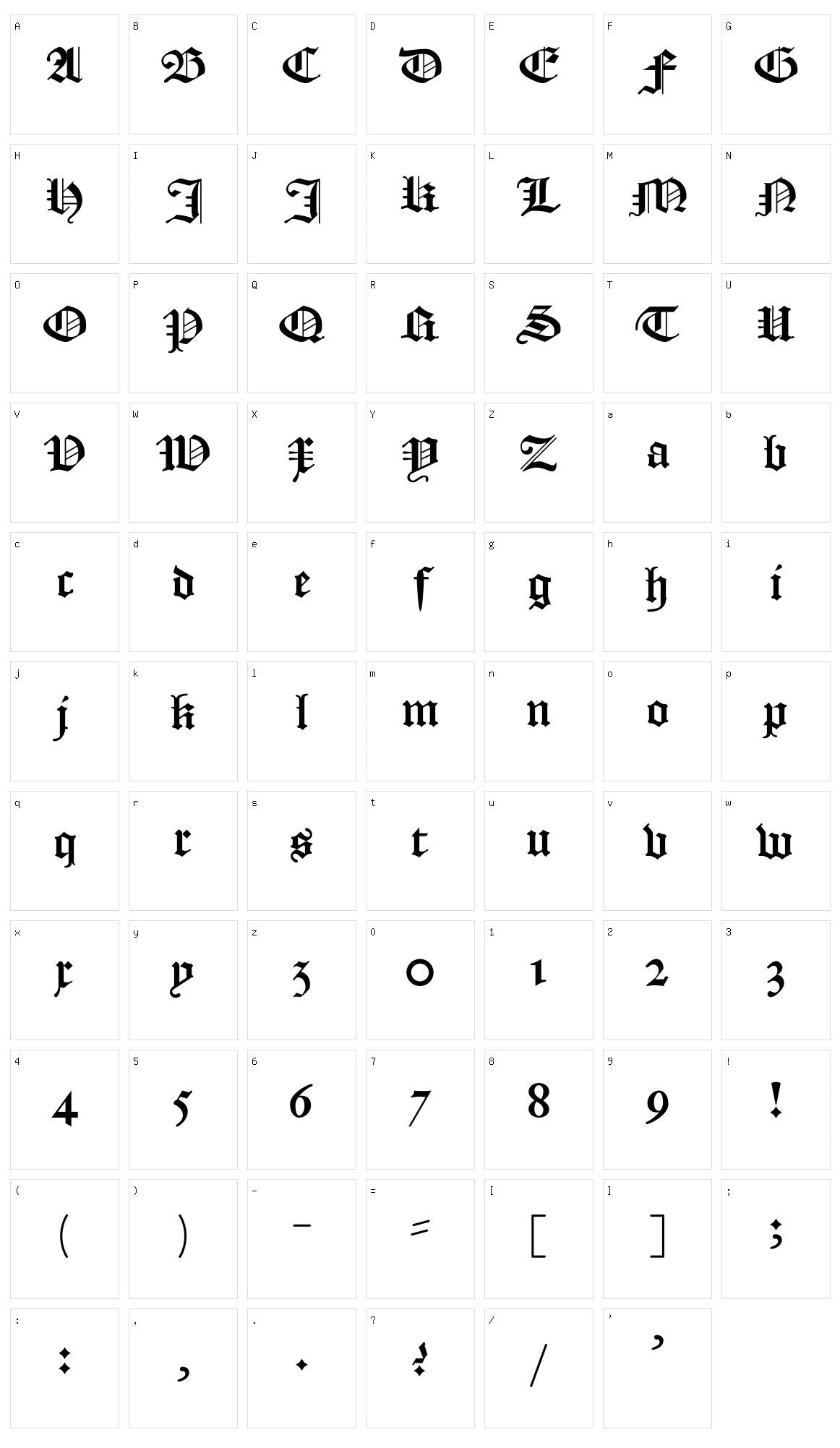
Textura Belgica
Category: Medieval & Gothic
~ TEXTURA BELGICA ~
== Over het lettertype ==
De schrik van menig student Nederlands! Textura Belgica is een traditiegetrouwe digitalisering van het Gotische lettertype zoals dat van de 16e tot in de 20e eeuw in het Nederlands taalgebied gebruikt werd.
Traditiegetrouw wil zeggen dat er in dit lettertype, anders dan in veel andere Gotische lettertypes die je online kunt vinden, volledige ondersteuning is voor de bijzondere tekens die je nodig hebt om naar hartelust je persoonlijke facsimiles maken!
Het lettertype is gedigitaliseerd aan de hand van een hoge-resolutie scan van een vel waarop alle letters staan, zoals gemaakt door de Gentse lettersnijder en -gieter Hendrick van den Keere. Naast dit vel, dat ik als basis heb gebruikt, heb ik gebruikt:
- scans van de Statenvertaling uit 1637 (https://www.bijbelsdigitaal.nl/view/?bible=sv1637);
- via Google Boeken 'Verbael van 't Verhandelde over de Gravamina, Kerckelijke swaricheden tot Rotterdam, Oudewater, etc.' (https://books.google.nl/books?id=zRZjAAAAcAAJ&printsec=frontcover&);
- mijn kleine privécollectie (twee bijbels, begin 19e en eind 18e eeuw, en een catechismus, tweede helft 18e eeuw).
Ik heb dit lettertype 'Textura Belgica' genoemd aangezien de term 'Belgica' in de tijd dat dit soort lettertype zijn 'gouden tijdperk' had nog als Latijnse benaming voor heel de Nederlanden gold (zo was de Latijnse naam van Nieuw-Nederland 'Nova Belgica').
== Bijzondere tekens en ligaturen ==
Aangegeven toetscombinaties op basis van de toetsenbordopmaak 'Verenigde Staten (internationaal)'
Inbegrepen bijzondere tekens zijn:
Tekens: Te typen met:
lange s (ſ) <ſ>, <ß> (AltGr+s)
r-rotunda (ꝛ) <ꝛ>, <®> (AltGr+r)
Over deze tekens, voor de oningewijden:
De regels voor de lange s lijken te verschillen per land en per tijdvak. Het is makkelijker de gevallen te benoemen waarin de lange s níét gebruikt moet worden, ten faveure van de gewone 'ronde' s. Een concrete regel is dat de lange s nooit aan het einde van een woord komt: 'ſtaal' en 'plaats'. Een andere mogelijke regel is dat de lange s niet aan het einde van een lettergreep komt: 'lasſer'. Volgens een derde regel mag de laatste letter van een deelwoord van een samenstelling geen lange s zijn; hier kun je dus een verschil in betekenis zien: 'plaat-ſtaal' en 'plaats-taal'.
De regels voor de r-rotunda zijn daarentegen vrij eenvoudig. Dit is een puur esthetische vorm van de letter <r> die moet worden geschreven na letters die naar rechts toe afgerond zijn, <b>, <d>, <p>?, <v>, <w>. Er blijkt echter ook discussie mogelijk over wat een 'ronde' letter is; zo heb ik een Bijbel uit de 19e eeuw waar ook met enige regelmaat na de <t> een r-rotunda gebruikt wordt.
Abbreviaturen: Te typen met: Afkorting voor (voorbeelden):
ā <ā>, <à> vā(n)
ē <ē>, <è> denkē(n)
ī <ī>, <ì> zī(n)
ō <ō>, <ò> zō(n)
ū <ū>, <ù> Jeſū(m)
ḋ <ḋ>, <ð> (AltGr+d) ḋ(aer)
n̄ <n̄>, <ñ> (AltGr+n) en̄(de)
m̄ <m̄>, <µ> (AltGr+n) alom̄(m)e
℣ <℣>, <©> (AltGr+c)
Ligaturen:
Standaard, deze zijn automatisch actief
ff
fl
ſt
ſſ
ſl
'Historisch', deze moet apart worden ingeschakeld, maar is ook te typen met <ÿ>
ij
== Verdere opmerkingen over de tekens ==
De zogeheten Gotische komma, die wij eerder als een gewone schuine streep zien, staat in dit lettertype ook op de plek van de schuine streep. Op de plek van de komma staat gewoon een 'moderne' <,>; maar voor het meest authentieke resultaat zou je dus eigenlijk de schuine streep moeten gebruiken.
Dit lettertype heeft twee soorten koppeltekens, die onder <-> en <=> staan (en er ook zo uitzien, maar de tweede gekanteld). <-> wordt voornamelijk gebruikt voor het scheiden van woorden (zoals 'na-apen'), terwijl <=> vooral als woordafbrekingsteken aan het einde van de zin gebruikt wordt. Zoals altijd in oude drukken werden de 'regels' echter niet zo strikt nageleefd, dus je komt ook variatie in gebruik tegen.
== About the font ==
The terror of many a student of Dutch Language and Culture! Textura Belgica is a true to tradition digitalisation of the blackletter type as it was used from the 16th into the 20th century in the Dutch language area.
With 'true to tradition' is meant that, in this font, differently from many other blackletter fonts you can find online, there is full support for the special characters you need to make your personal facsimiles!
This font had been digitalised using a high-resolution scan of a sheet with all letters, as made by type cutter and founder Hendrick van den Keere, from Gent in the 16th century. Beside this sheet, which I used as a base, I used:
- scans of the Dutch 'States Translation' of the Bible from 1637 (https://www.bijbelsdigitaal.nl/view/?bible=sv1637);
- via Google Books 'Verbael van 't Verhandelde over de Gravamina, Kerckelijke swaricheden tot Rotterdam, Oudewater, etc.' (https://books.google.nl/books?id=zRZjAAAAcAAJ&printsec=frontcover&);
- my own little private collection (two Bibles, early 19th and end 18th century, and a catechism, second half 18th century).
I have called this font 'Textura Belgica' as the term 'Belgica' during the 'golden age' of this type of font was used as the Latin name of all the Netherlands (equivalent in area with the modern Benelux). For example, the Latin name of the Dutch colony New Netherland was 'Nova Belgica'.
== Installation ==
is very simple. Open the ttf file and click 'install'. When you have installed the font previously, you will have to confirm that you want to overwrite it.
== Special characters and ligatures ==
Indicated key combinations are based on the layout 'United States (International)'
Included special characters are:
Characters: Can be typed using:
long s (ſ) <ſ>, <ß> (AltGr+s)
r rotunda (ꝛ) <ꝛ>, <®> (AltGr+r)
About these characters, for those who don't know:
The rules for using the long s seem to differ by country and time period. It's easier to note the cases in which it /shouldn't/ be used instead of the normal 'round' s. One concrete rule is that the long s is never used at the end of a word: 'ſteel', 'treats'. One other possible rule is that the long s isn't used at the end of a syllable: 'tosſer'. According to a third rule (relevant for languages with composite words written as one), the long s shouldn't be used as the final letter of a word within a composite word. Put simpler: 'graſshopper' would amount to 'grass-hopper' ('graſſ' isn't possible as 'ſ' can't be the final letter), whereas 'grasſhopper' would amount to 'gras-shopper'.
The rules for the r rotunda are comparatively simple. This is a purely aesthetical variant of the letter <r>, that should be used after letters rounded to the right, eg. <b>, <d>, <p>, <v>, <w>. There is, however, room for debate about what counts as a 'rounded' letter. I've come across several cases in my 19th century Bible where the printers have used the r rotunda after the <t>.
Abbreviations: Can be typed using: Abbreviation for (examples):
ā <ā>, <à> vā(n) (of)
ē <ē>, <è> denkē(n) (to think)
ī <ī>, <ì> zī(n) (sense, purpose, sentence)
ō <ō>, <ò> zō(n) (sun)
ū <ū>, <ù> Jeſū(m) (Jesus [accusative])
ḋ <ḋ>, <ð> (AltGr+d) ḋ(aer) (there)
n̄ <n̄>, <ñ> (AltGr+n) en̄(de) (and)
m̄ <m̄>, <µ> (AltGr+n) alom̄(m)e (everywhere, all around)
℣ <℣>, <©> (AltGr+c)
Ligatures:
Standard, these are automatically active
ff
fl
ſt
ſſ
ſl
'Historical', has to be seperately activated, but can also be typed using <ÿ>
ij
== Further comments on the characters ==
The so-called scratch comma, which we would currently see as a slash, also takes the place of the slash (</>) in this font. Under the comma, I've put the 'modern' <,>; but for the most authentic results, you should really use the slash.
This font has two types of hyphens, under <-> and <=>. <-> is used mainly for the seperation of word-parts (as demonstrated in this very word), whereas <=> is mainly used to seperate words continuing on the next line. As always in old prints, the 'rules' were seen more as guidelines, so this difference wasn't maintained too strictly.